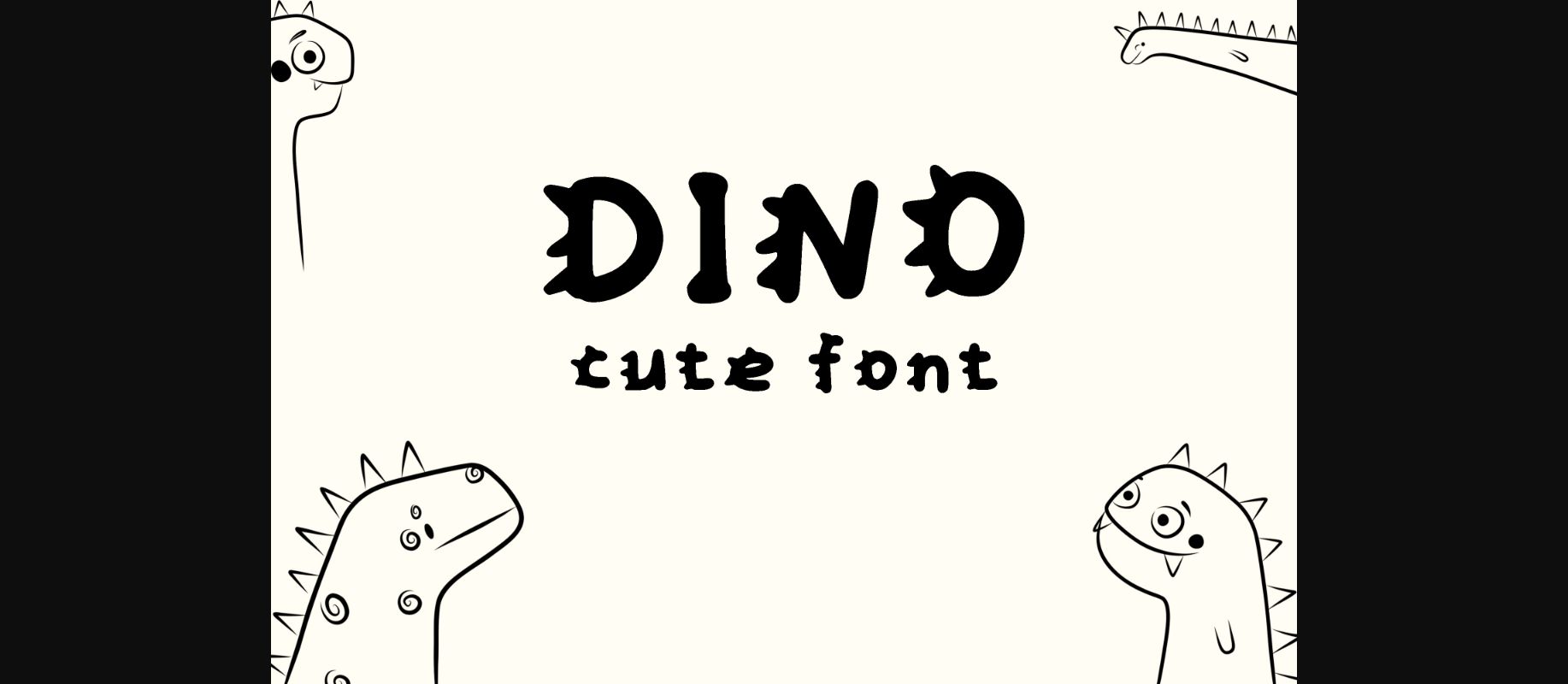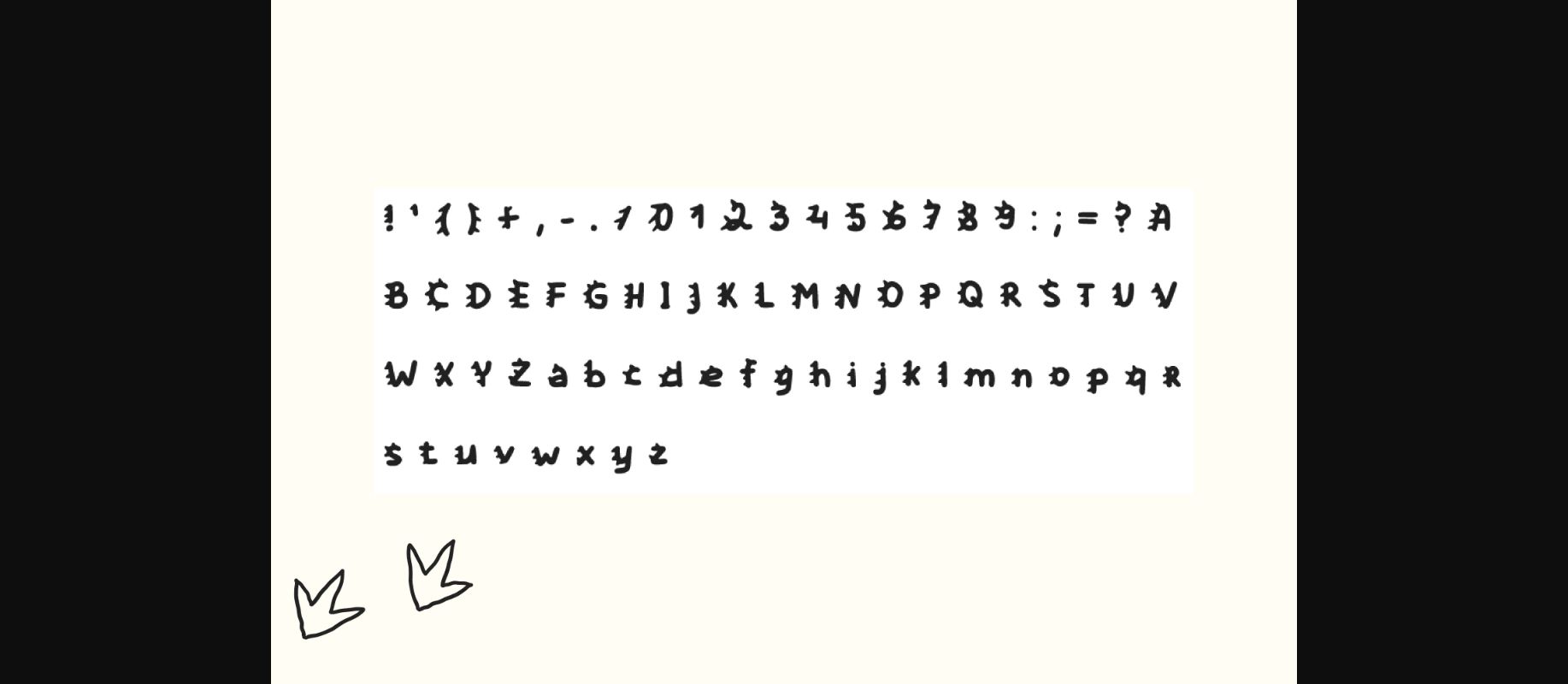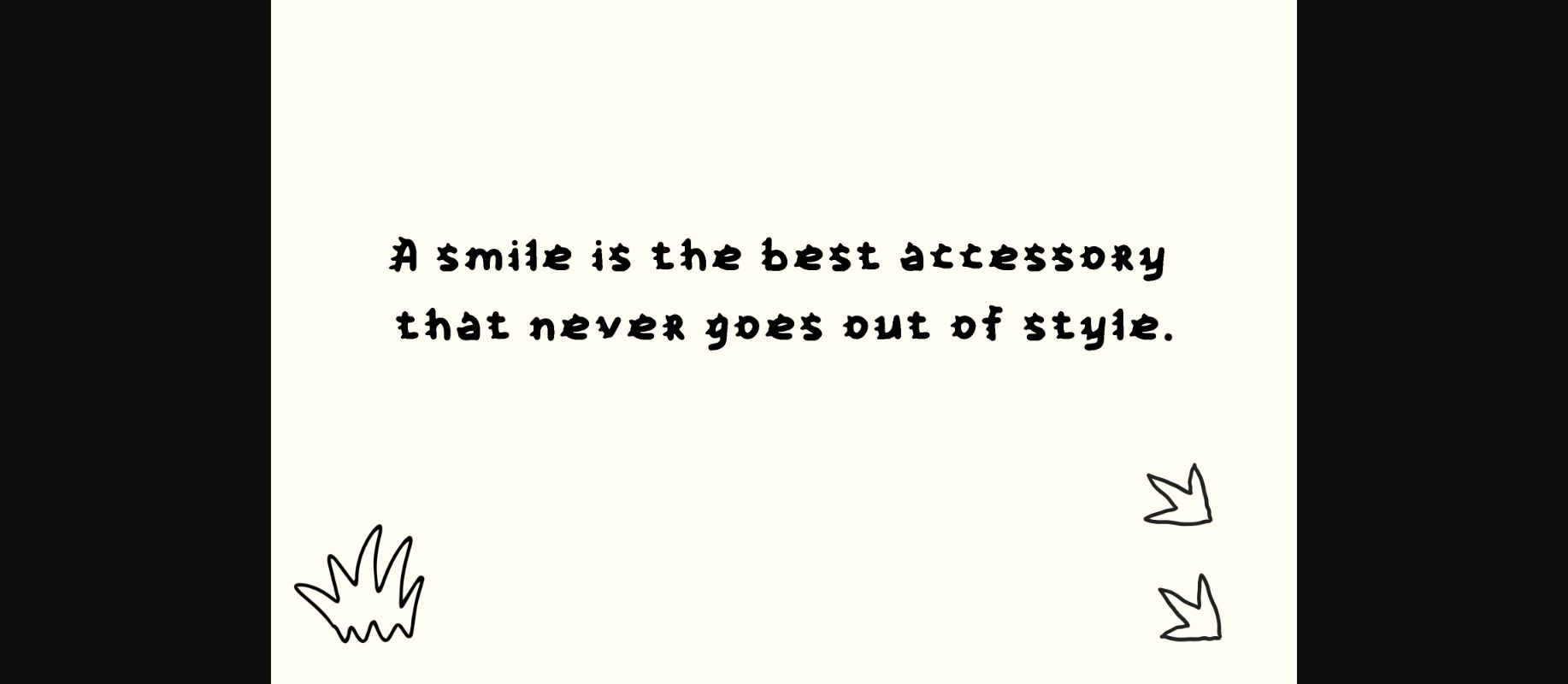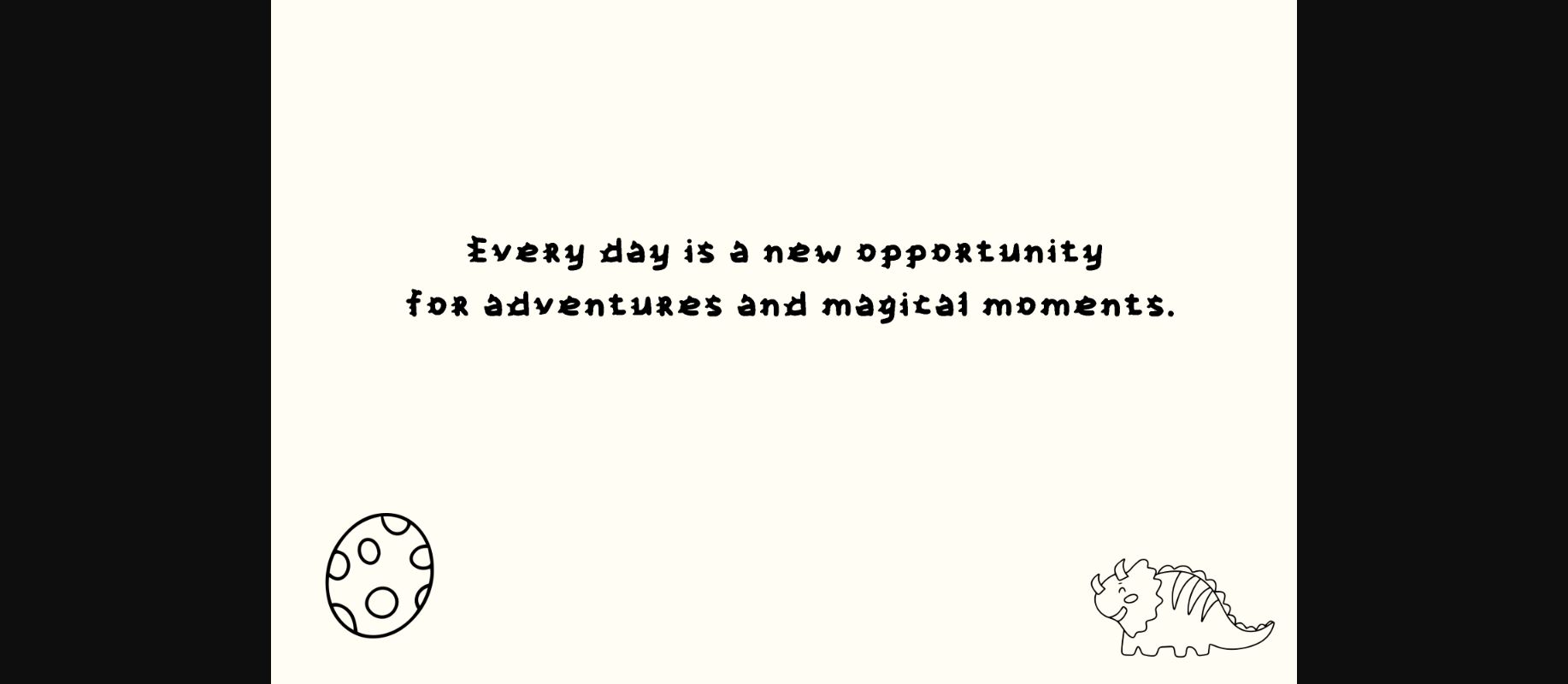
Dino Font
About Dino Font
Dino is a playful alphabet styled as dinosaurs! Each letter looks like a cute dinosaur, making it fun for kids and anyone who loves dinosaurs. Use it to create eye-catching titles, posters, or anything else that needs a touch of prehistoric charm. Let your imagination roam with Dino!